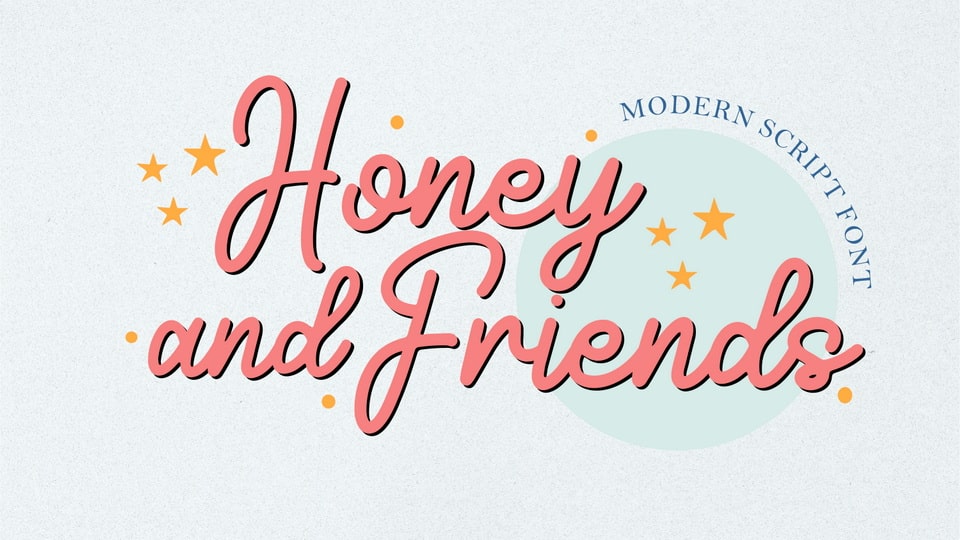
Download Honey & Friends font, a script typeface especially designed for luxury, elegant, feminine projects. Honey & Friends font is perfect for creating modern and chic designs such as logos, packaging, editorials and more.